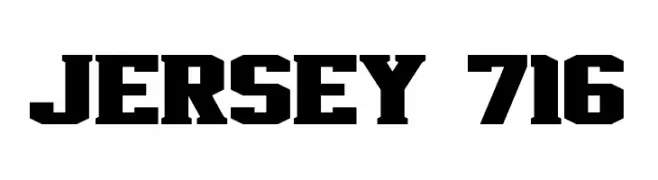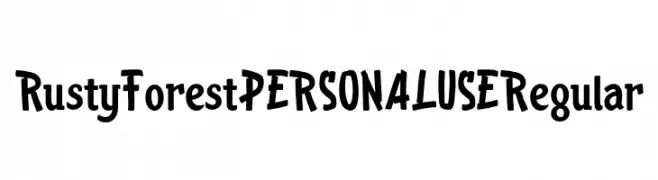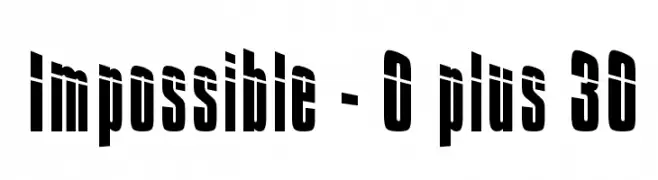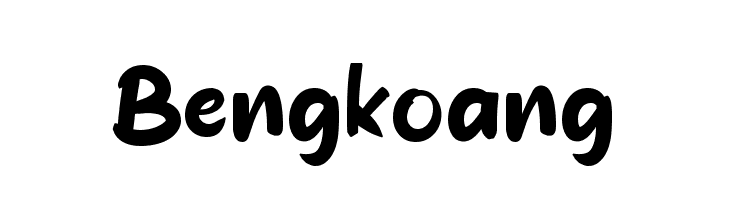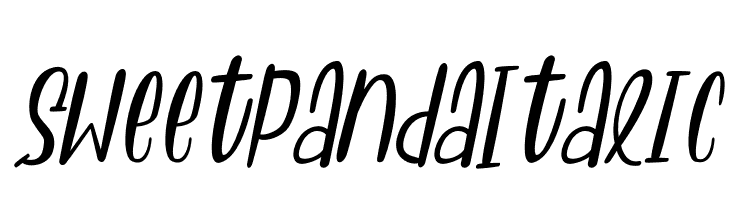
A playful, casual handwritten font with smooth, rounded letterforms.
A bold, geometric font with a strong, blocky appearance.
Playful handwritten script font.
A bold, playful font with a hand-drawn, rustic charm.
A bold, condensed font with high contrast and a modern, dynamic style.